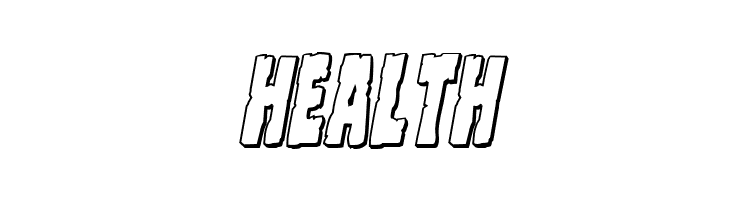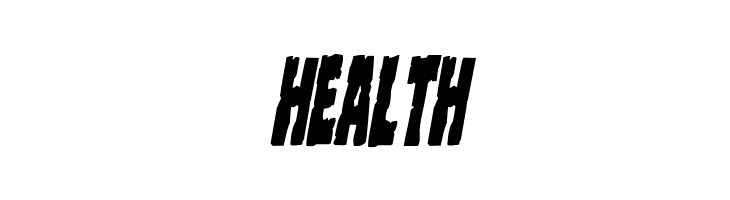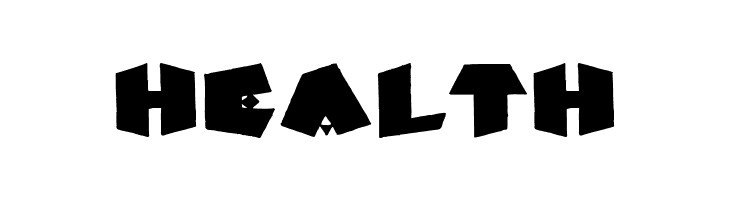
A bold, 3D italic font with rugged outlines and dynamic style.
A bold, condensed, and italicized font with a dynamic and energetic style.
A bold, slanted font with sharp, angular edges and an energetic style.
A playful, handwritten font with smooth, rounded lines.
A bold, playful, and slightly italic font with rounded characters.
A bold, expanded, and italicized font with a playful and friendly style.